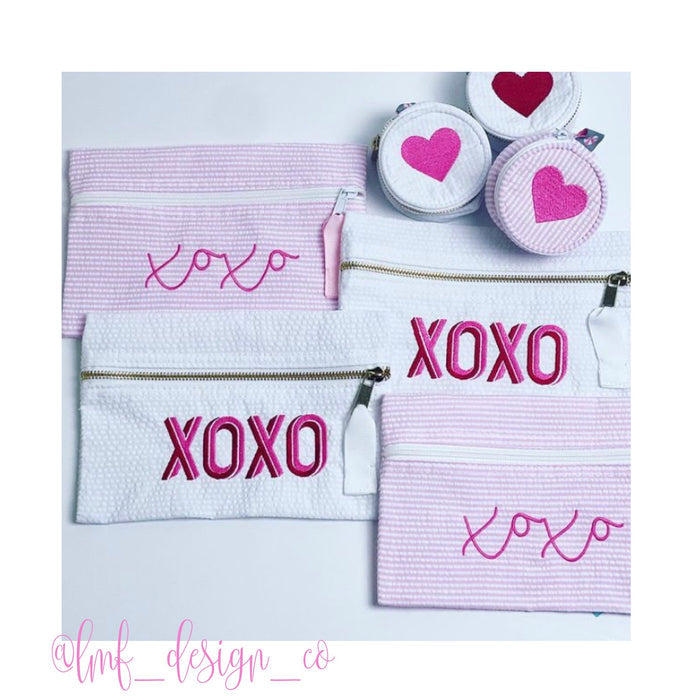
Sailor Lee Embroidery Font Package 4x4 Hoop
The Sailor Lee Embroidery Font Package is perfect for crafters looking to add a unique touch to their projects. Featuring a three-color satin stitch design, this font is ideal for embroidery machine monogramming, providing versatility and style.